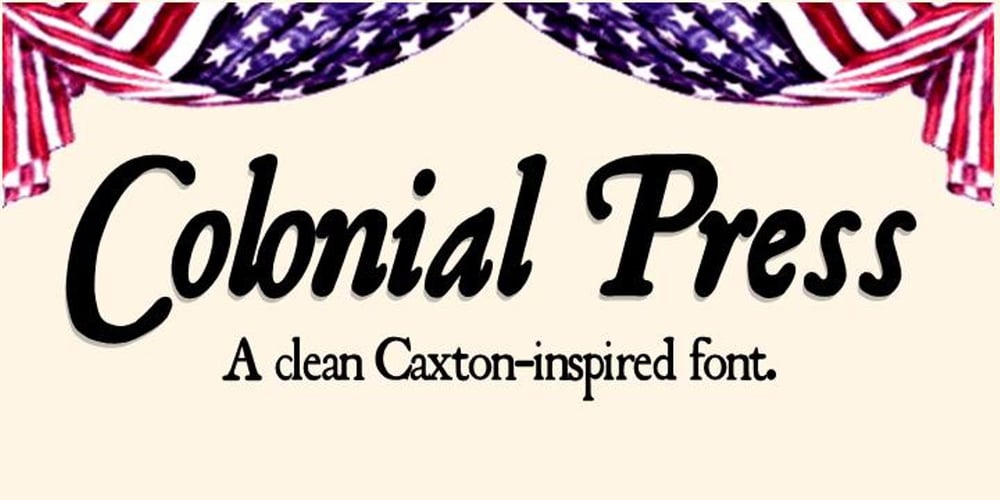
Colonial Press
Colonial Press font
Colonial Press Font Family was designed by published by Simeon out West. Colonial Press contains 2 styles and family package options. Colonial Press is a font based on serif typefaces designed by William Caslon I (1692-1766) and various revivals thereof. Caslon is cited to be the first original typeface of English origin, but some type historians point out the close similarity of Caslon’s design to the Dutch Fell types, presumed to be the work of Dutch punchcutter Dirck Voskens. Colonial Press harkens to the look and feel of newspapers in Colonial North America around the mid 1700s without the rough edges commonly associated with colonial printing and many reconstructions. The rough quality of the American typeface is believed to be the result of oxidation from the exposure to seawater during the long voyage from England to the Americas. Colonial Press is a heavy font that retains some of the handcut quality of these fonts while smoothing out the irregularities that make many of these fonts so visually distracting at larger point sizes. For the italic version of this font, I chose to emulate the more ornate letterforms that I have encountered, giving the italic characters a more ornamental feel. Colonial Press comes with full punctuation and a 362 glyph character set for most Western European-based Latin alphabet languages. It is a font that is designed both for normal typing and for larger, decorative display.